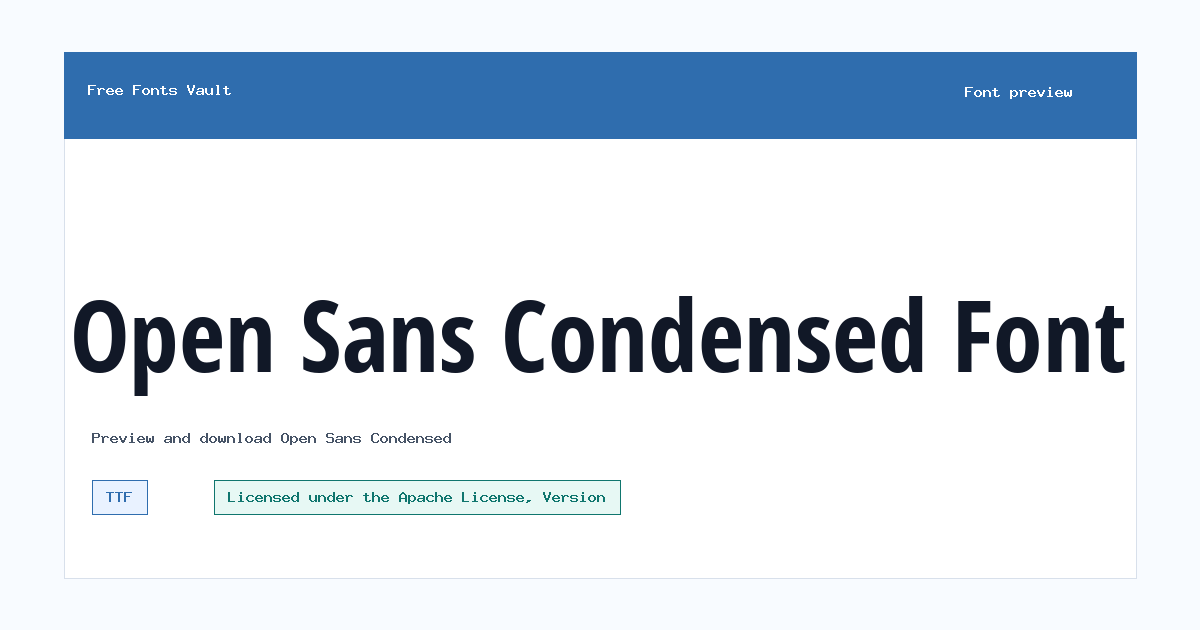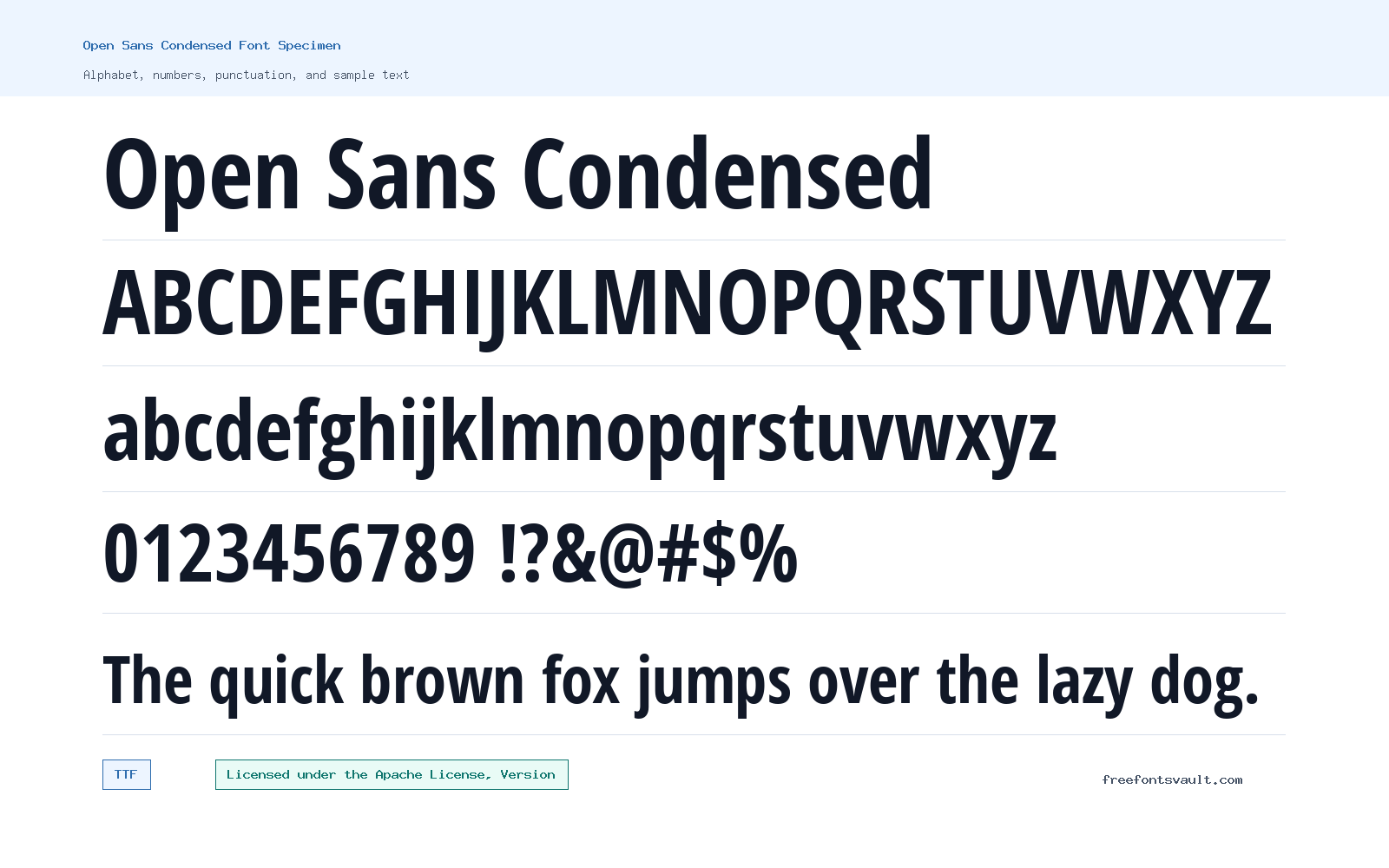
Open Sans Condensed
- Designer Ascender Corporation
- Foundry Ascender Corporation
Open Sans Condensed font.
Open Sans Condensed is a narrow bold sans serif style from the Open Sans family, made for clear short text when horizontal space is limited.
About Open Sans Condensed
Open Sans is a humanist sans serif typeface originally designed by Steve Matteson of Ascender. The Condensed Bold style keeps the clean, open feel of the family but uses a tighter width and heavier weight, which makes it useful when you need strong text without taking up too much room. Its tall, compact letters work well for headings, menu items, labels, sidebars, banners, and other places where a regular-width font may feel too wide.
- Condensed bold sans serif design with a space-saving width
- Open Sans family style with a clean humanist sans serif structure
- Strong weight for headings, labels, menus, and compact title text
- Website headings and section titles
- Navigation menus and sidebar labels
- Posters, banners, and promotional text blocks
- UI labels, buttons, and compact interface text
- Short branding-style layouts that need a narrow bold sans
Open Sans was originally designed by Steve Matteson of Ascender. The font information for this page also lists Ascender Corporation as the foundry.
Use Open Sans Condensed Bold when you need clear, narrow text with emphasis. Test it at the exact size you plan to use, especially in all caps or small UI labels. Increase letter spacing slightly for uppercase headings if the words feel tight, and avoid using this bold condensed style for long body copy.
Is this the full Open Sans family?
No. This font file is the Condensed Bold style, with normal style and weight 700.
What is Open Sans Condensed best used for?
It works best for short text such as headings, menus, banners, labels, buttons, and compact interface text.
Should I use it for paragraphs?
It is better for short text. For paragraphs, use a regular-width text font and reserve Open Sans Condensed Bold for emphasis or structure.